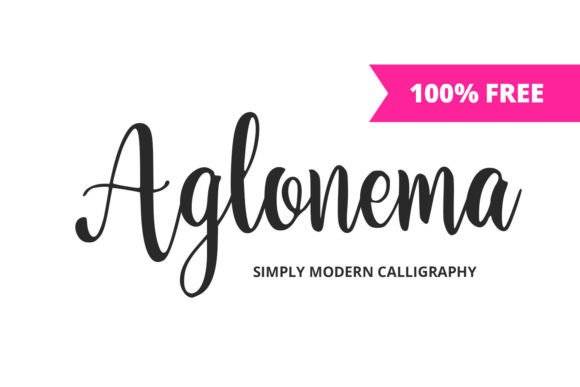
Aglonema Font for Headlines, Posters and Branding Projects
This is a modern display font designed with bold elegance and visual harmony in mind. Aglonema stands out in headline use, poster layouts, and upscale branding with its high-contrast letterforms and clean geometric foundation.
As a font entity, Aglonema offers a refined aesthetic that's ideal for editorial design, packaging, and logo creation. Its stylish rhythm and spacing deliver both impact and legibility, even in large-scale applications. The versatility of Aglonema makes it a preferred choice among designers seeking to elevate their visual storytelling. Its unique character set complements various themes and concepts, allowing for seamless integration into diverse creative endeavors. Notably, the amrina font for creative projects brings an additional layer of artistry and customization, making every design stand out.
Perfect for designers seeking a professional tone with a creative edge in advertising, visual identity, or digital campaigns.
- Magazine-style headlines and layouts
- Luxury brand packaging and logos
- Promotional posters and event signage
- Stylized product titles and labels
- Social content and print marketing visuals
- High-contrast and modern aesthetic
- Elegant design with strong presence
- Versatile for editorial and brand use
- Works beautifully in print and digital media
Q: What kind of font is Aglonema?
A: Aglonema is a modern display font designed for stylish headlines, bold posters, and professional branding visuals.
Q: Does Aglonema print clearly at large sizes?
A: Yes, the font is optimized for large-scale use in posters, packaging, and signage without losing detail.
Q: Can it be used in social media graphics?
A: Definitely. Its modern design makes it perfect for high-impact social media visuals and promotions.
| Font Style | Modern display serif | Traditional serif | Geometric display |
| Use Cases | Headlines, posters, branding | Books, print articles | Posters and labels |